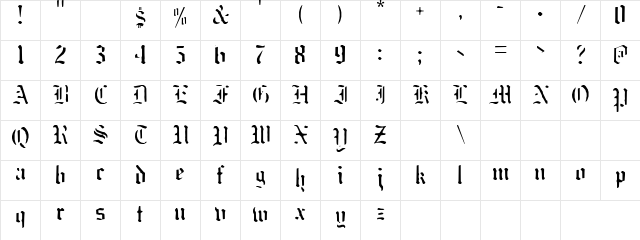
Aggarwal Regular Free Font
Aggarwal Regular
Designer: JupiterImages
Design Context for Aggarwal
Aggarwal is a composed and adaptable typeface that performs quietly and consistently across a wide range of design contexts.